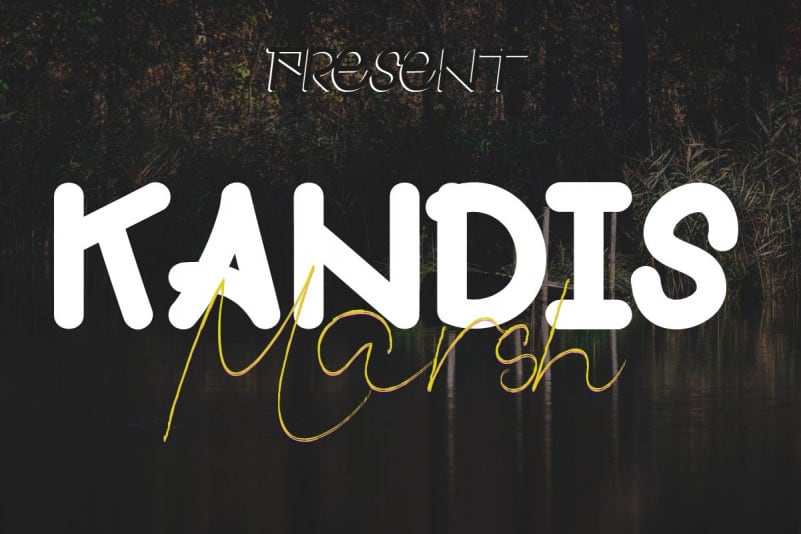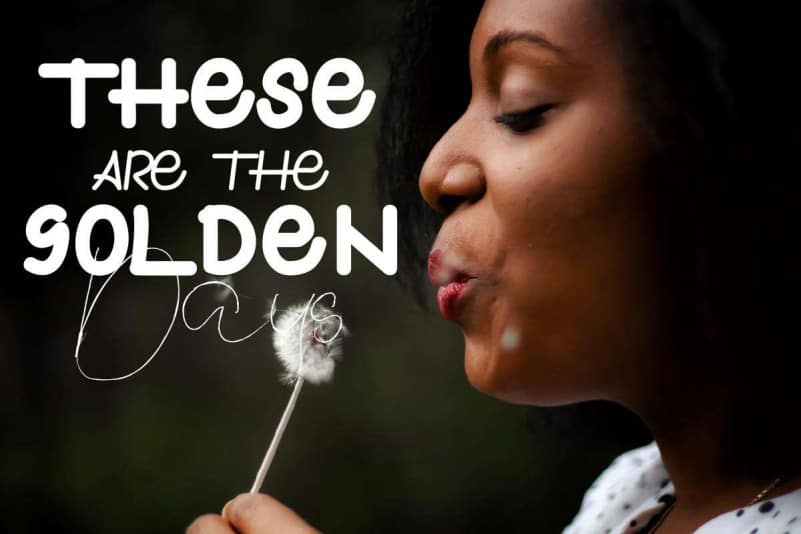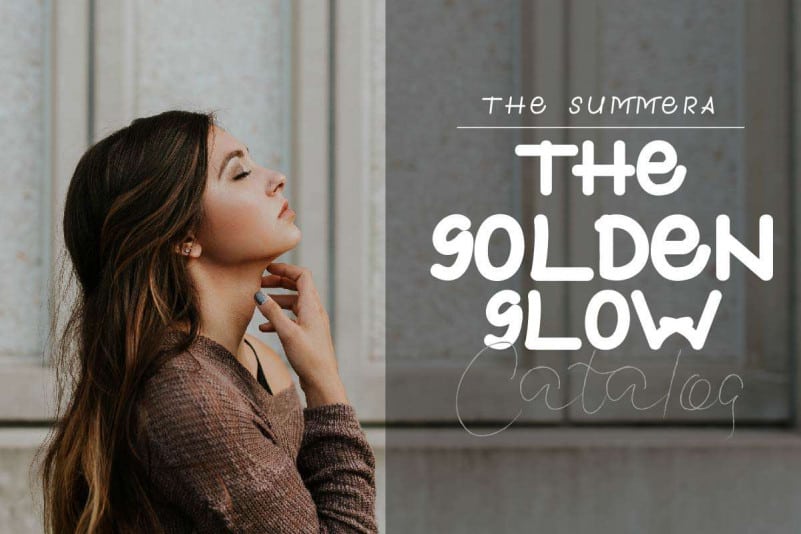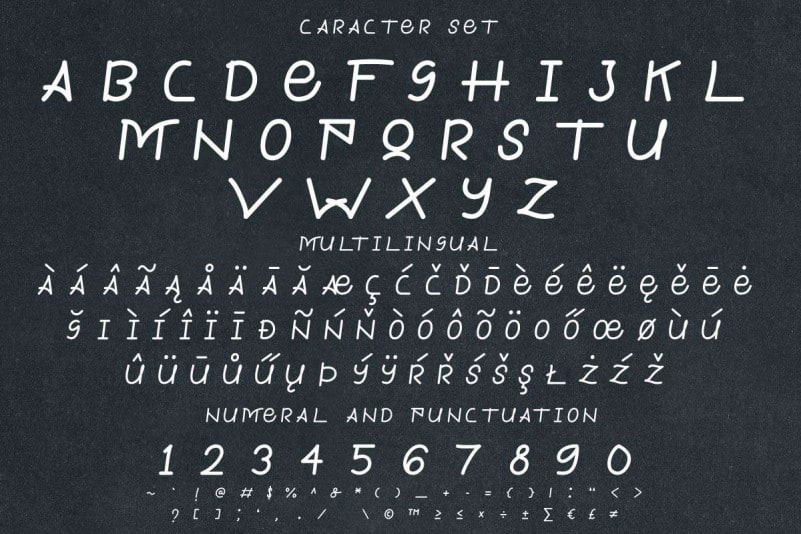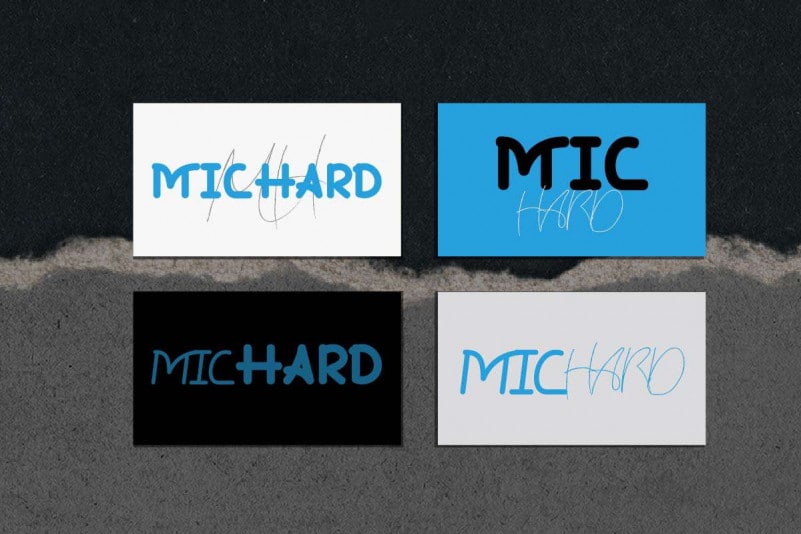
Kandis Marsh Font Duo
Edric Studio in 2020 Present to you : Kandis Marsh Font Duo This is a display script font family made in Bandung-Indonesia. It has three styles : Reguler, Bold and Script. Made by Yasri and Sarah in Bandung and Garut – Indonesia.